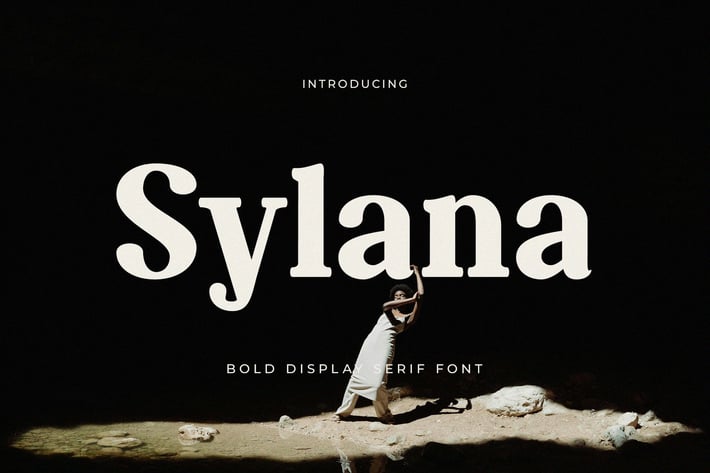
Sylana - Display Serif Font
Sylana is a versatile display serif font that effortlessly blends vintage aesthetics with a contemporary feel. With its bold letterforms and distinctive rounded serifs, this font is ideal for creating striking and memorable designs. Use Sylana to add a touch of nostalgia to your logos, headlines, and other design elements.
- Numeral & Punctuation
- Multilingual accents